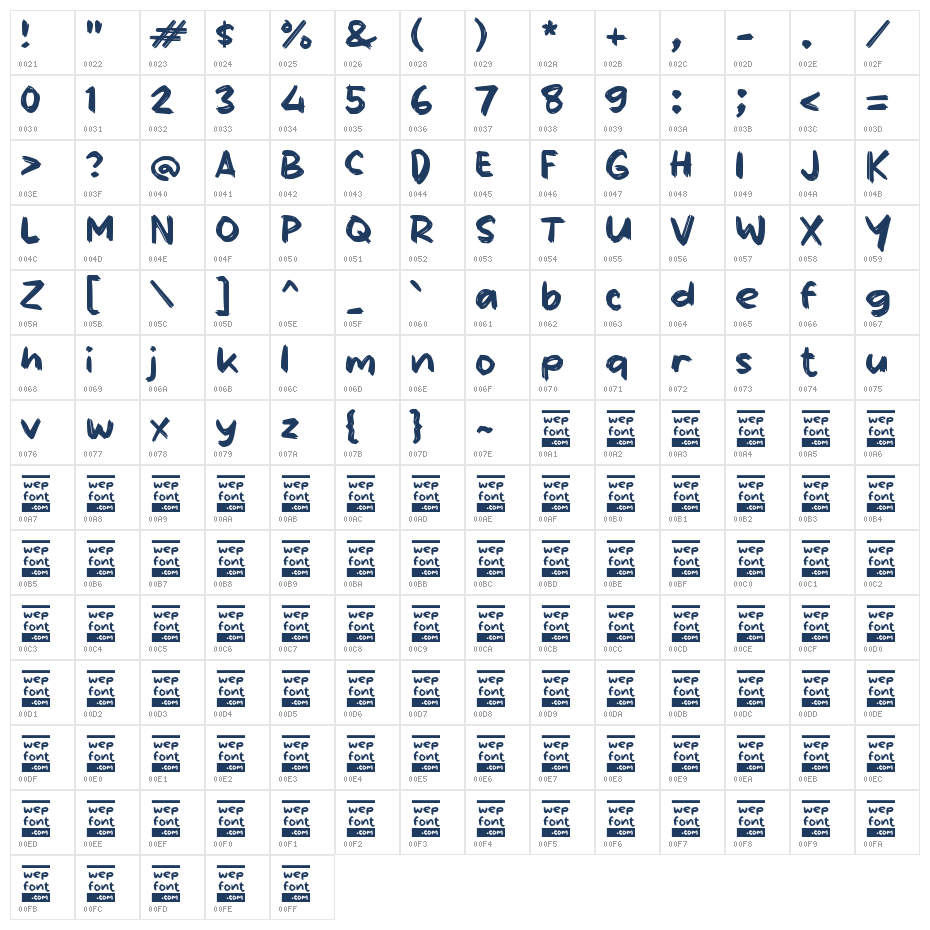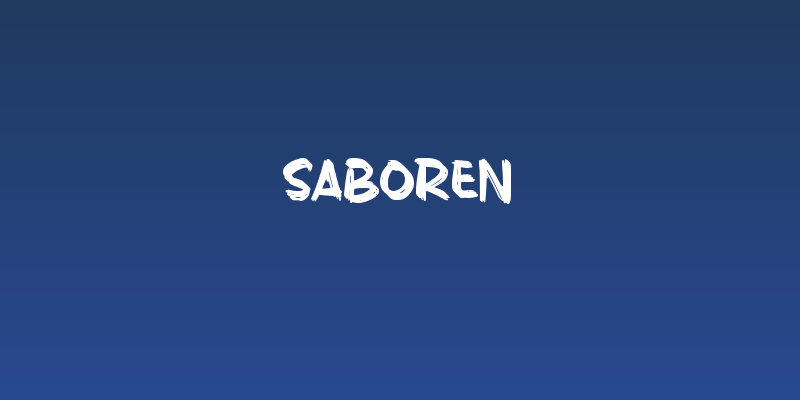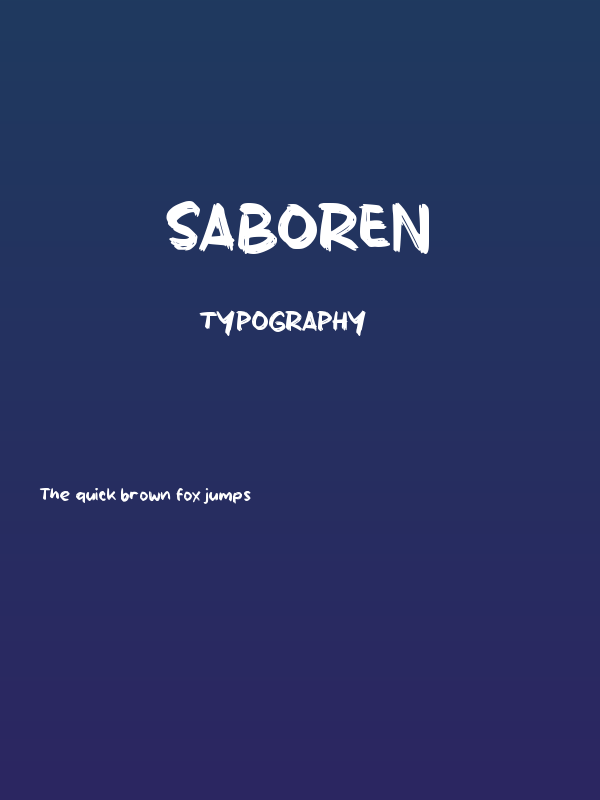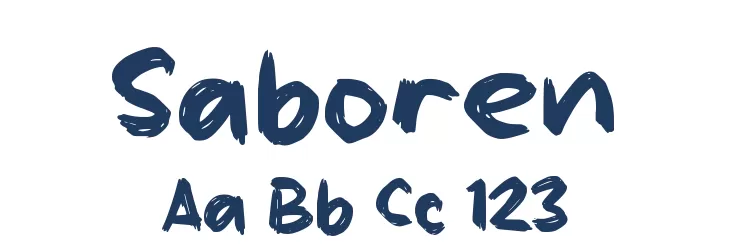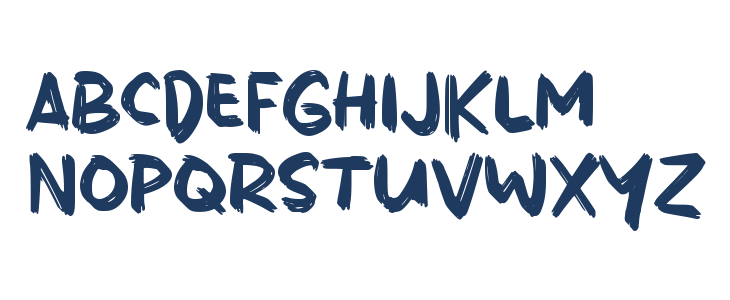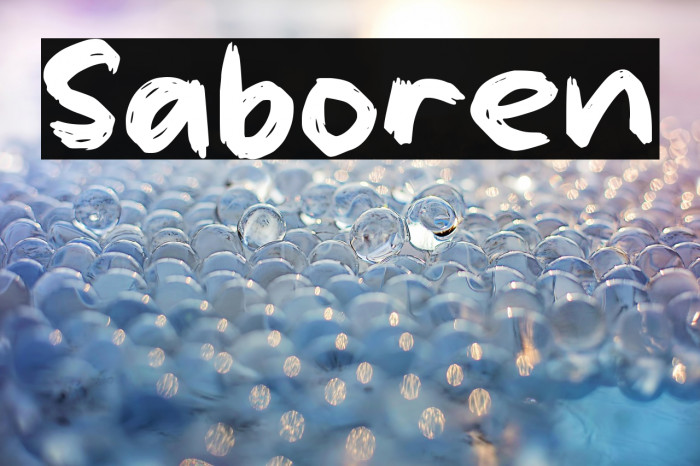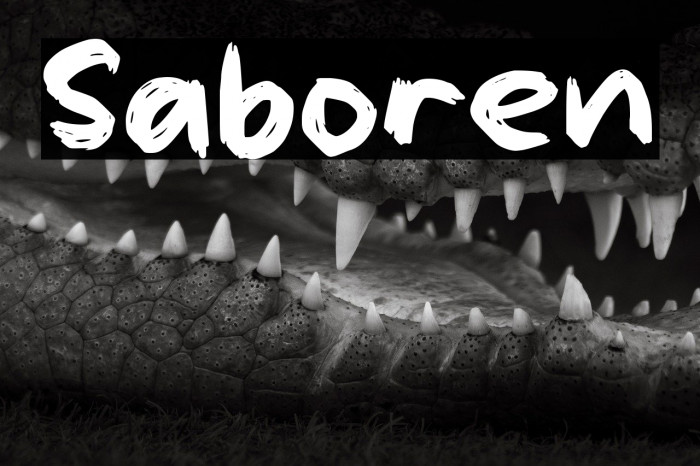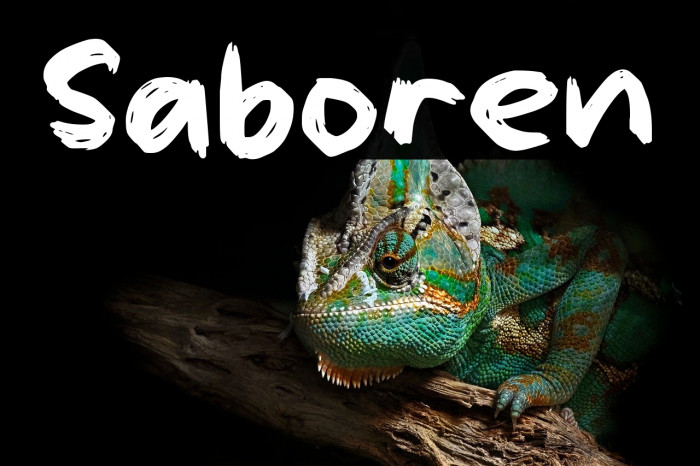
Saboren Font
Saboren Description
A bold, brushstroke-style handwritten font with a casual and energetic appearance, featuring uppercase and lowercase letters, numbers, and common punctuation.
| Overall Style | Casual, Artistic, Handcrafted |